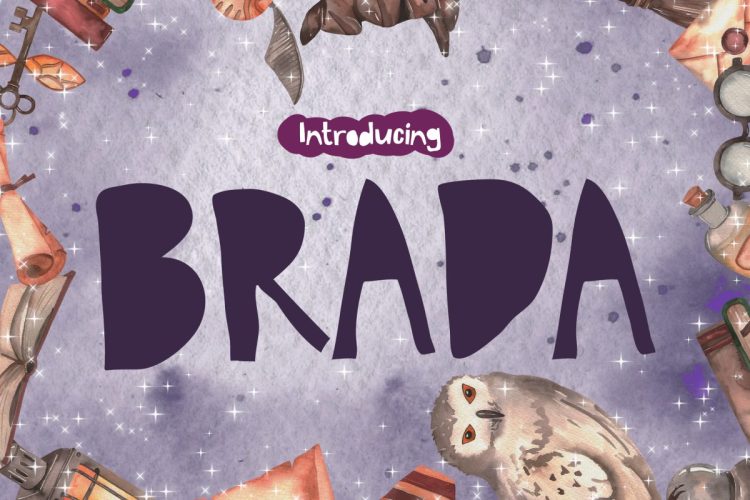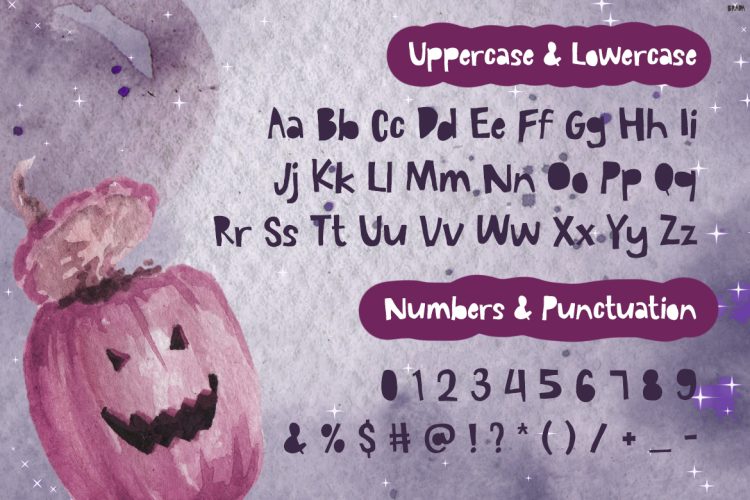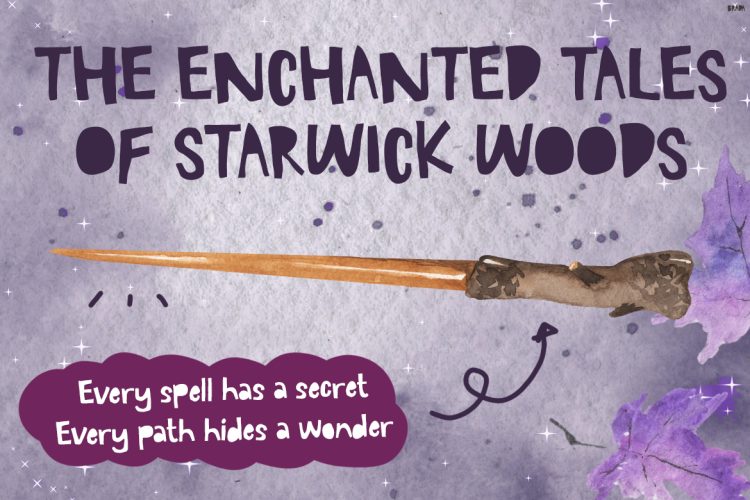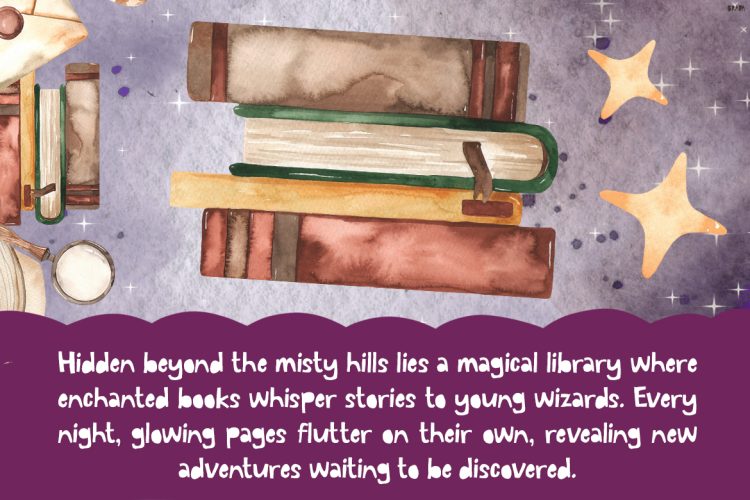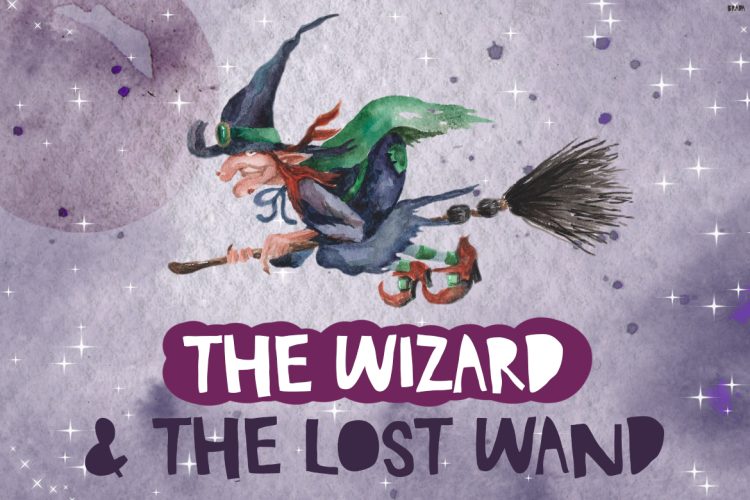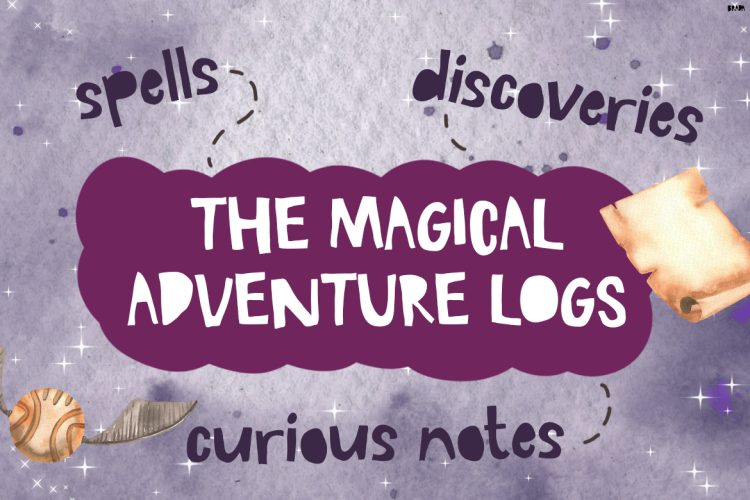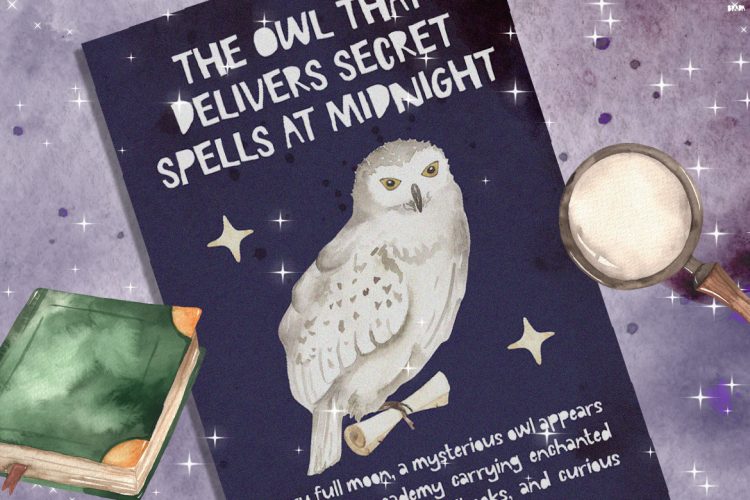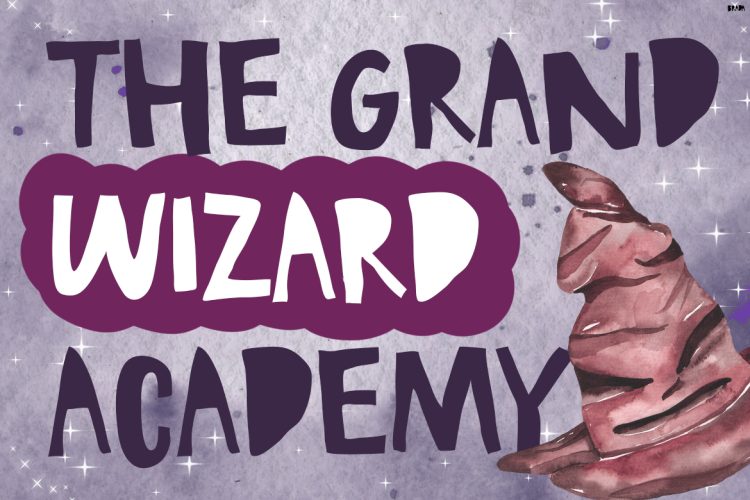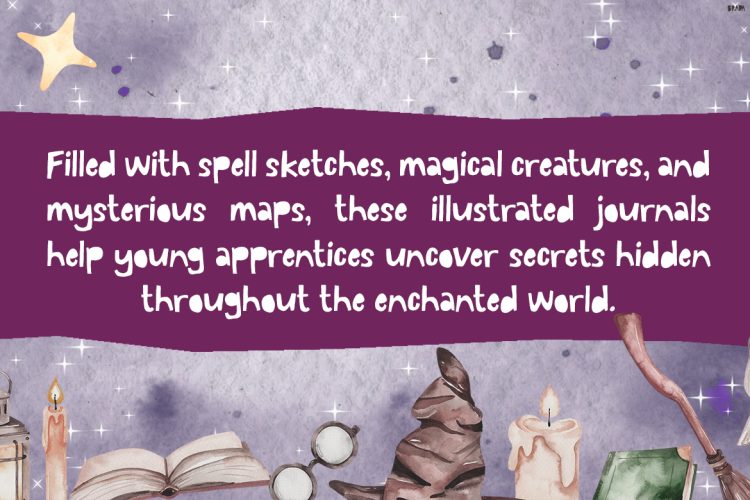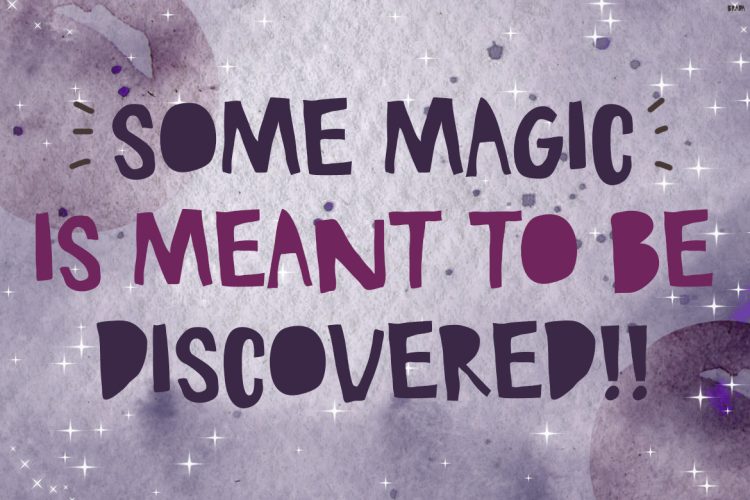
Instagram Font Brada โ Enchanting Typography for Whimsical Stories & Creative Adventures
Instagram Font Brada is a magical display font designed to bring wonder, imagination, and storytelling charm to every project. Not only does it feature playful handcrafted letterforms, but it also captures the enchanting atmosphere of fantasy worlds, wizard tales, and magical adventures. Moreover, its unique character shapes create a whimsical personality that instantly attracts attention. In addition, the organic strokes and imaginative details add warmth and creativity to every design. Furthermore, Brada maintains excellent readability, making it ideal for both digital and print applications. As a result, your titles, book covers, posters, and social media graphics become more memorable and engaging. Meanwhile, its fantasy-inspired aesthetic helps create an immersive visual experience. Additionally, with support for 67 languages, Brada allows creators to share magical stories with audiences around the world. Therefore, it is a perfect choice for international creative projects.
Instagram Font Perfect For
Brada is crafted for projects that celebrate imagination, fantasy, and creativity. Whether you’re designing children’s books, magical storybooks, fantasy novels, educational materials, game titles, party invitations, event posters, or social media content, this font helps create a captivating visual identity. Likewise, its playful style makes every design feel more approachable and entertaining. Furthermore, its handcrafted appearance adds authenticity and charm. Consequently, your audience becomes more connected to the story behind the design. At the same time, its bold display structure ensures headlines remain clear and impactful.
Who Can Use It?
- Children’s Book Authors
- Fantasy Writers & Publishers
- Game Designers
- Teachers & Educators
- Event Organizers
- Content Creators
- Branding Designers
- Social Media Marketers
- Creative Agencies
Why Choose Brada?
- Magical Fantasy Style
- Playful Handcrafted Letterforms
- Storybook-Inspired Design
- Strong Headline Impact
- Excellent Readability
- Multilingual Support (67 Languages)
- Perfect for Fantasy & Kids Projects